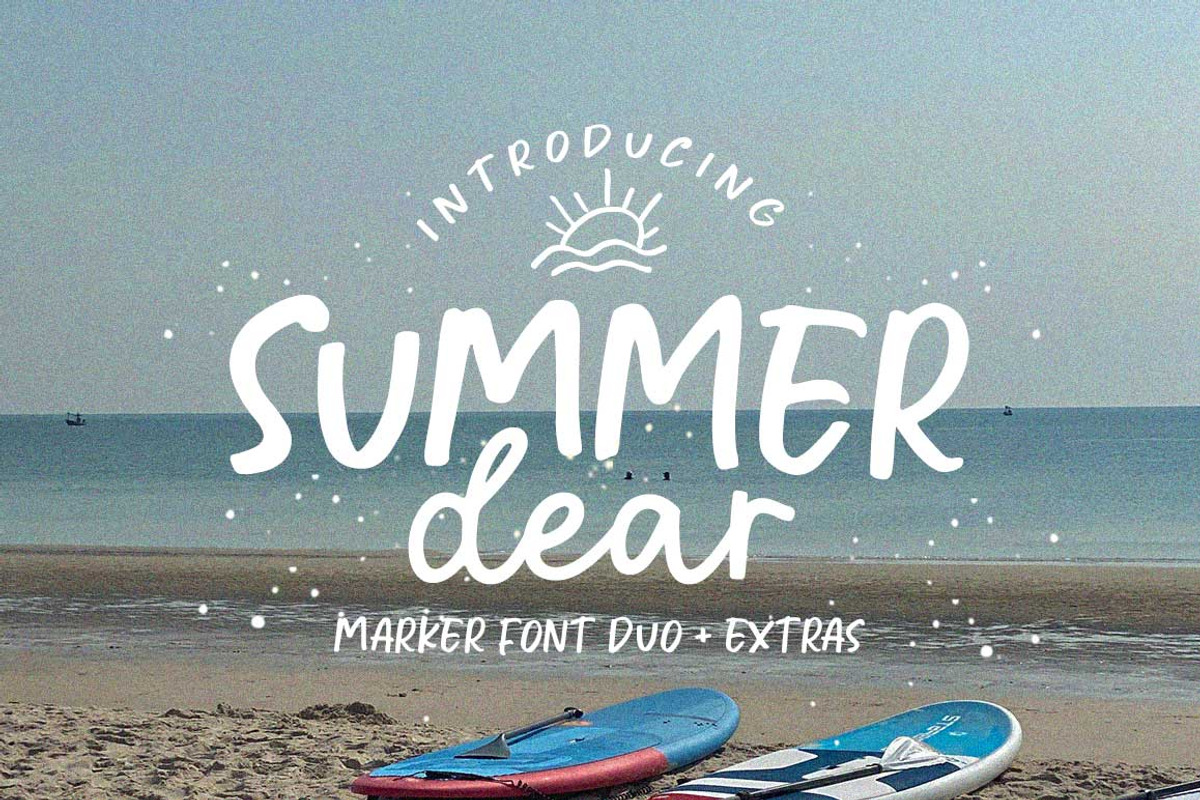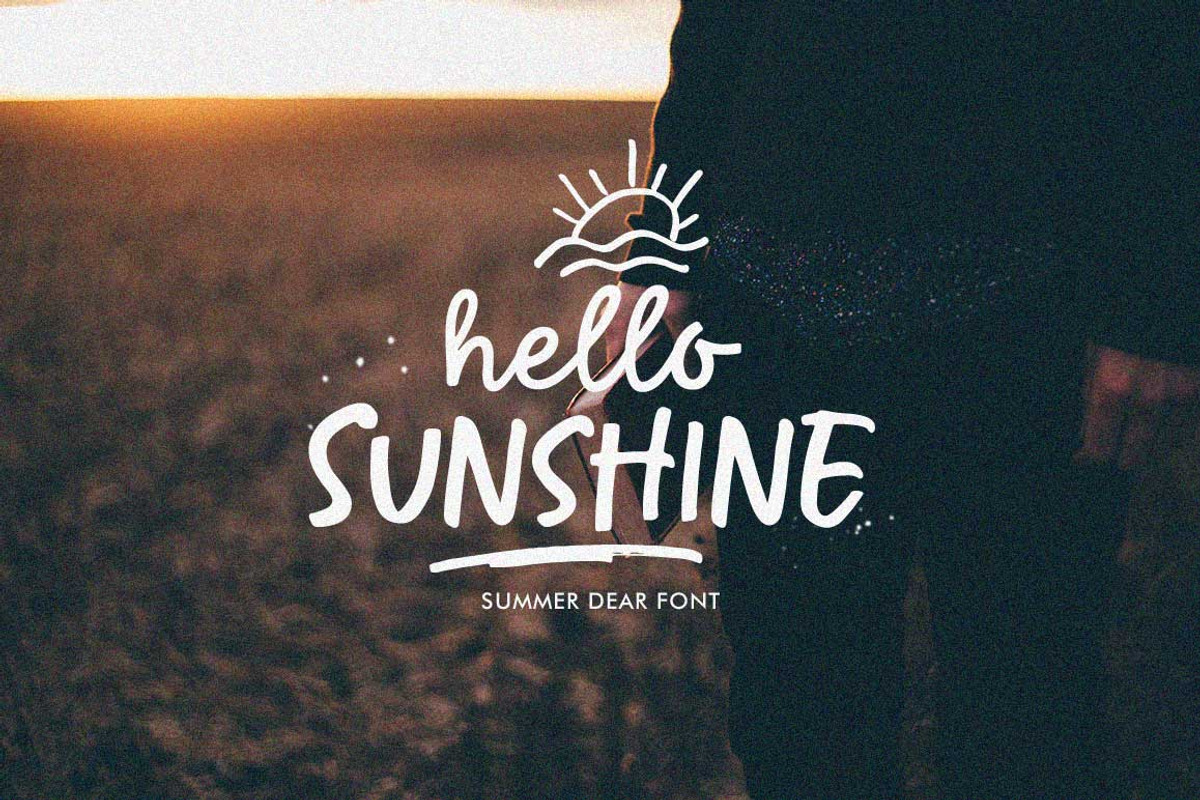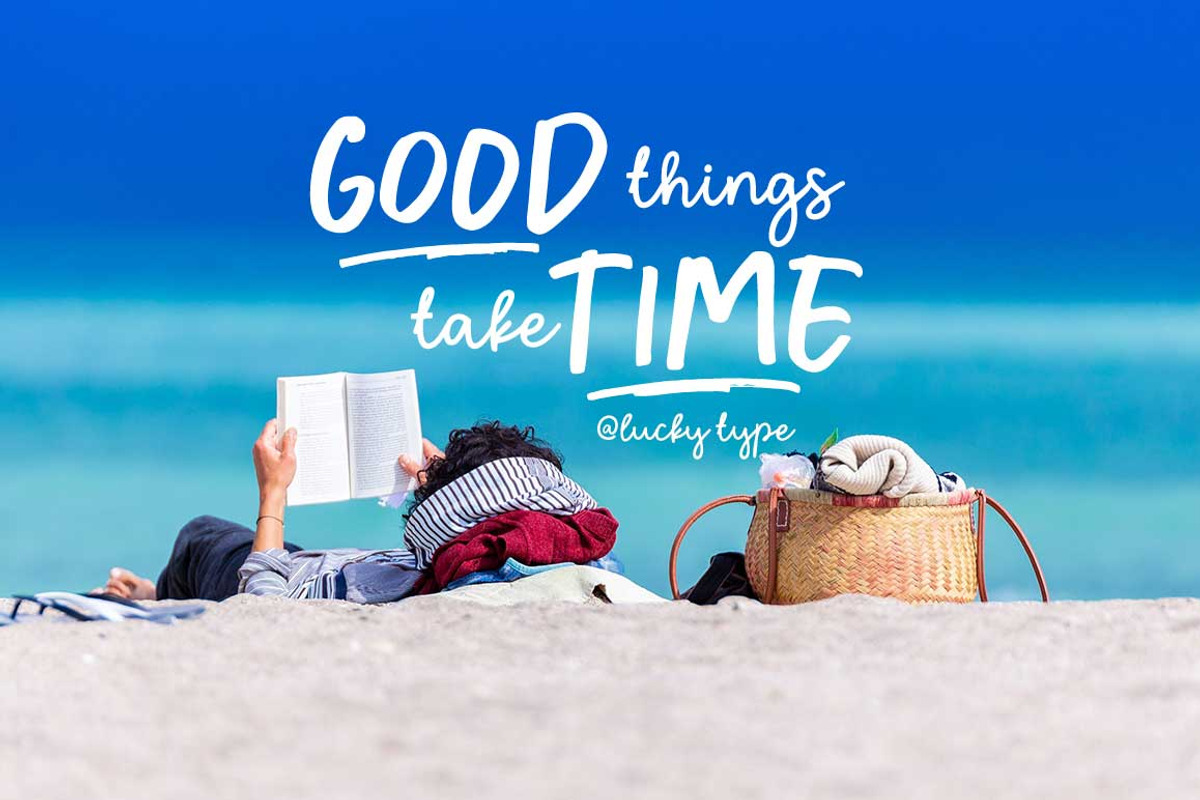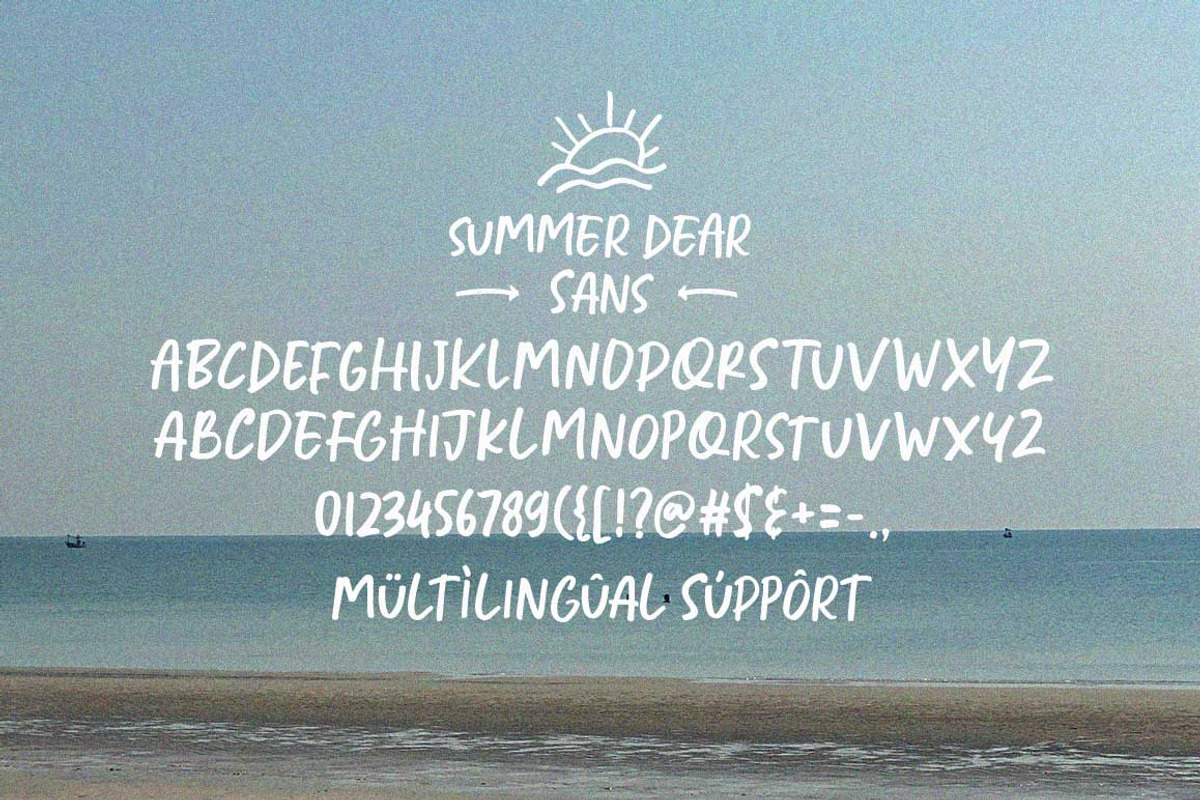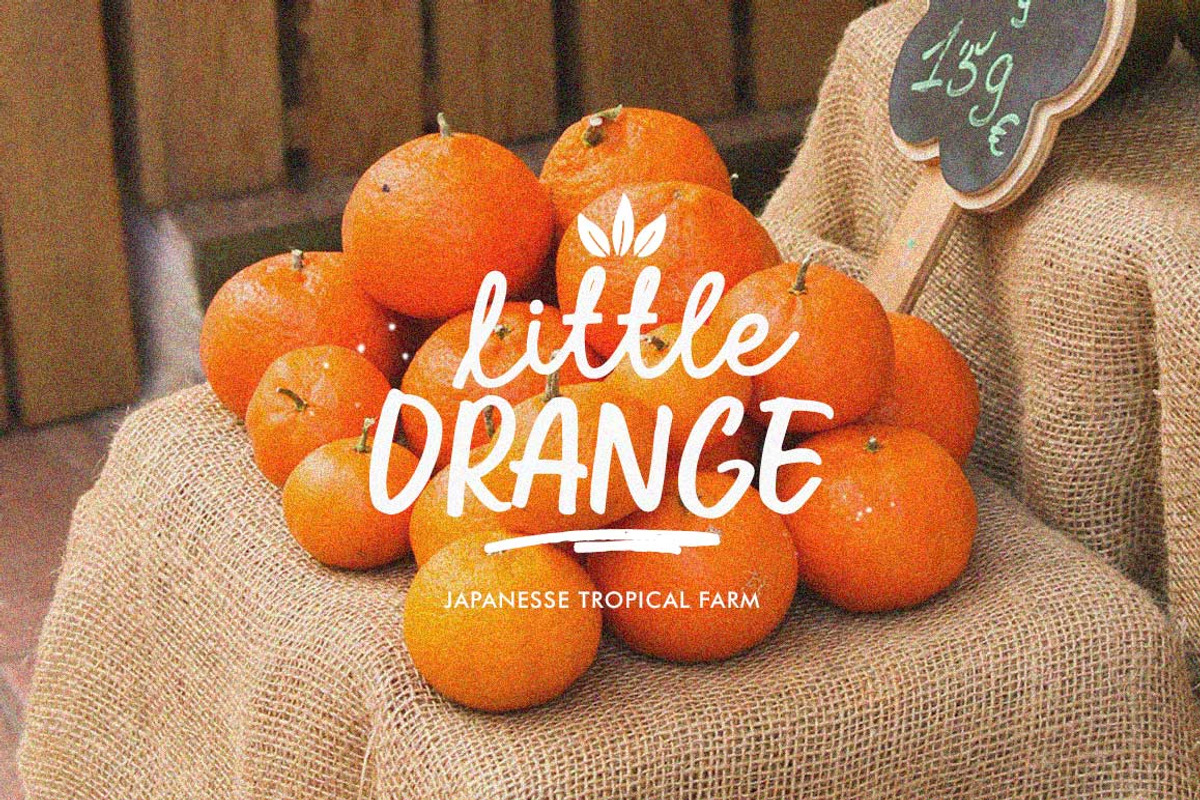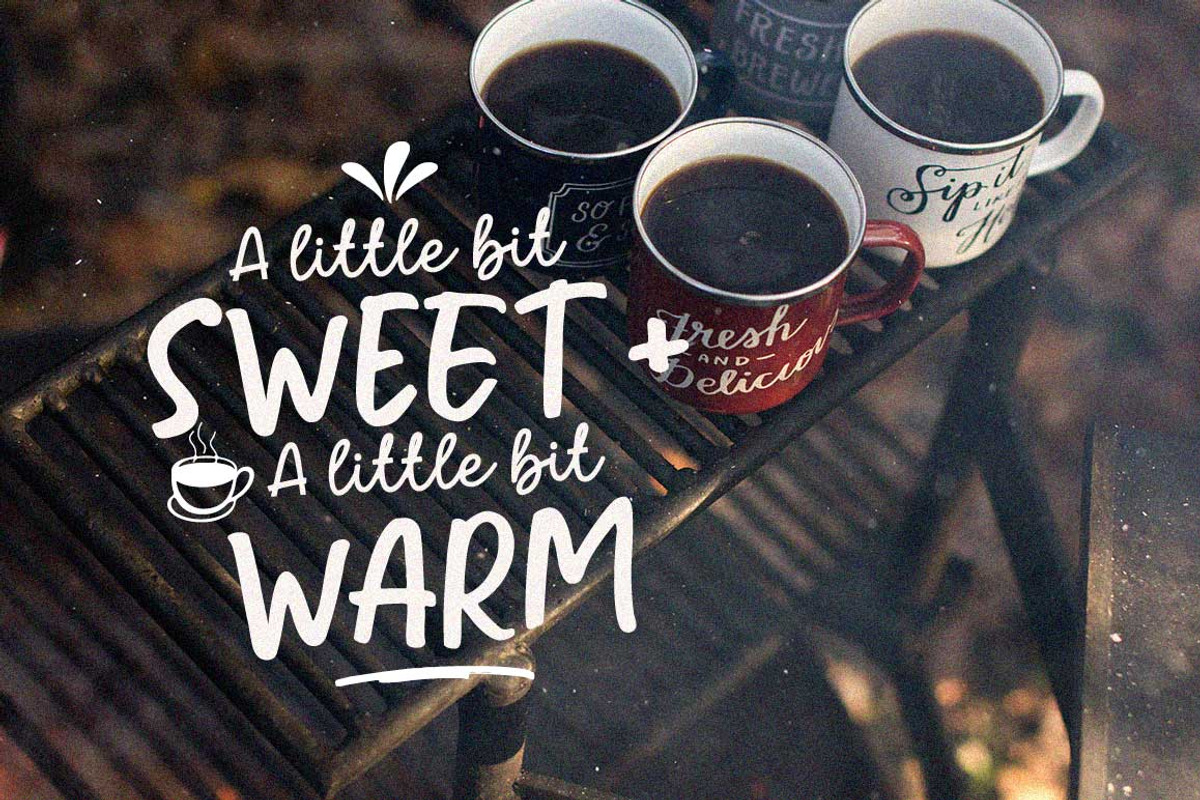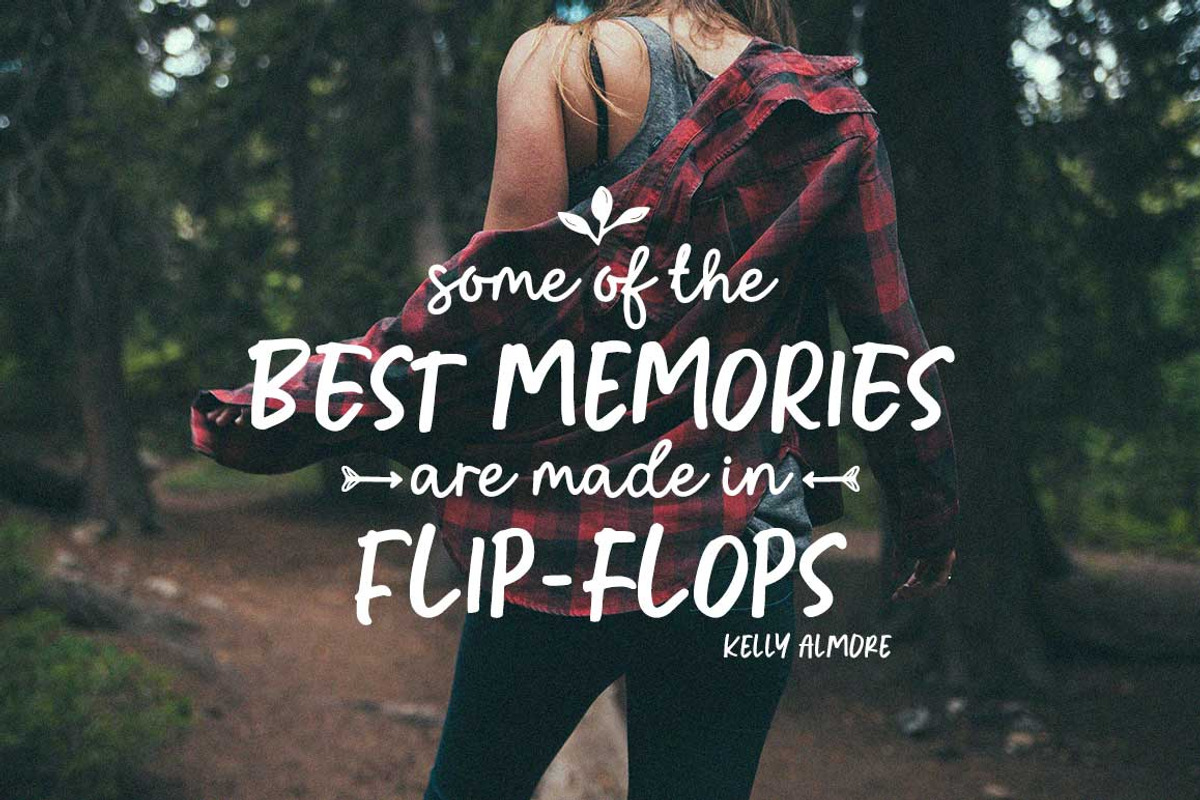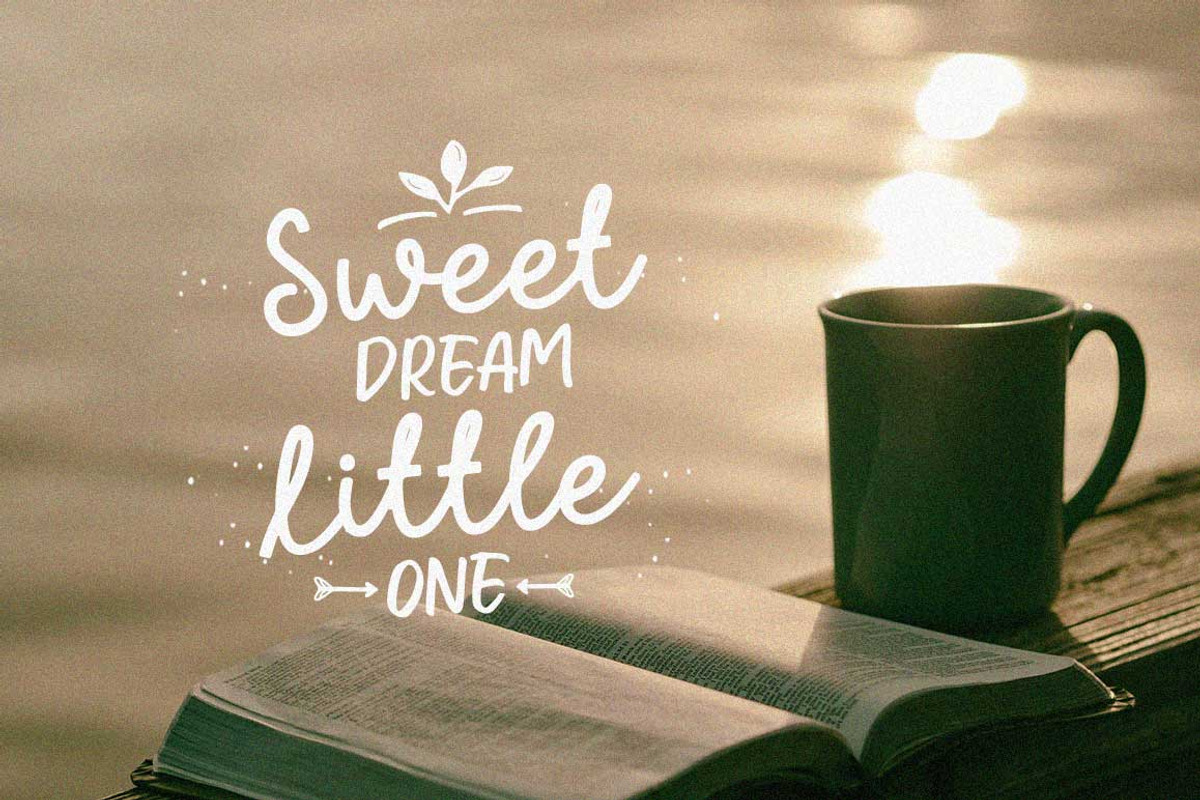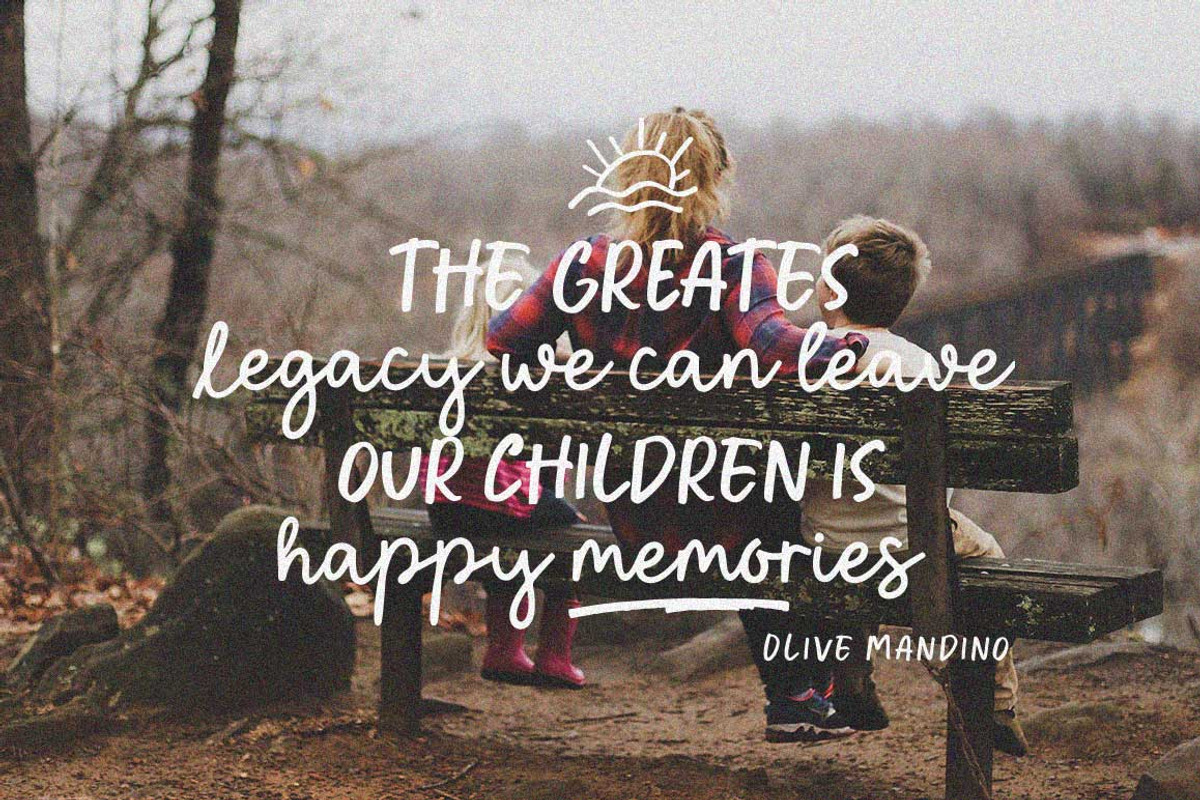
Summer Dear Font Duo + Extras
Let me introduce the latest beautiful combination of handwritten font Summer Dier Font Duo + Extras. The Summer Dier Font typeface is designed to make your next great project look more natural and stand out.
The Summer Dier Font includes several Opentype Ligatures included to make the typeface look more natural and lastly, it has over 30 handcrafted additions to help your future designs look prettier. Thank you very much for viewing.